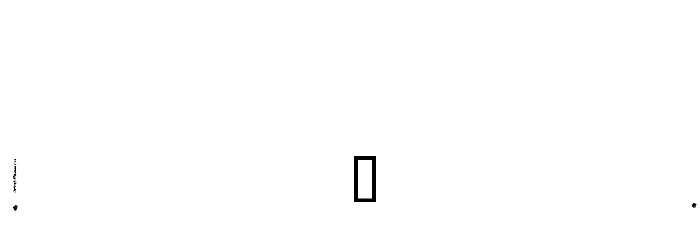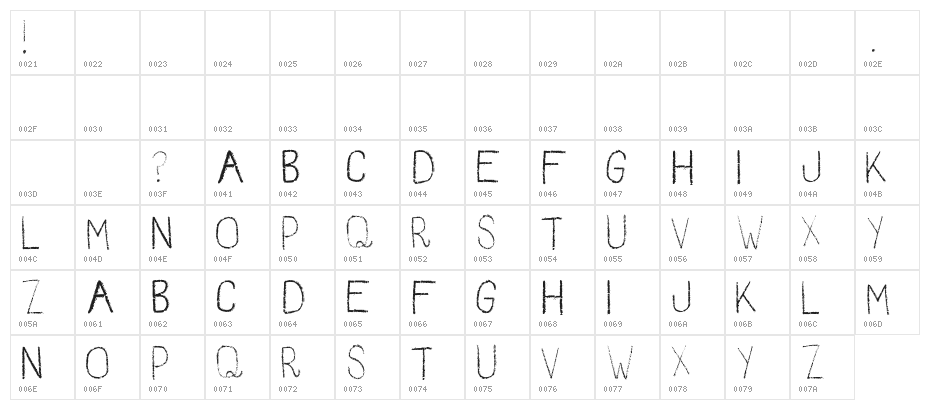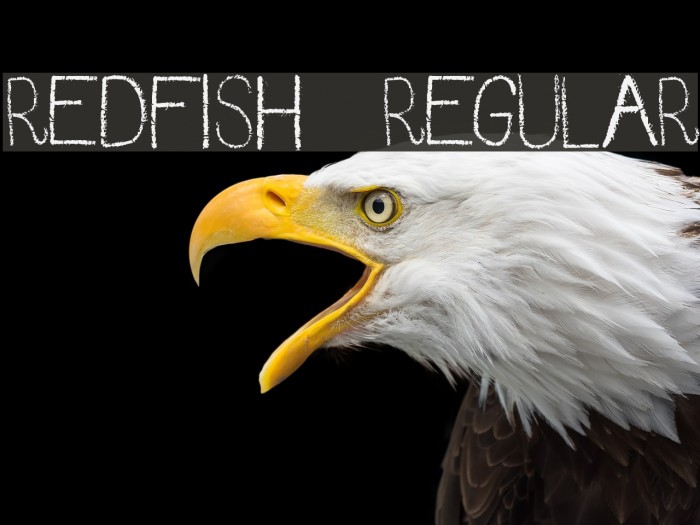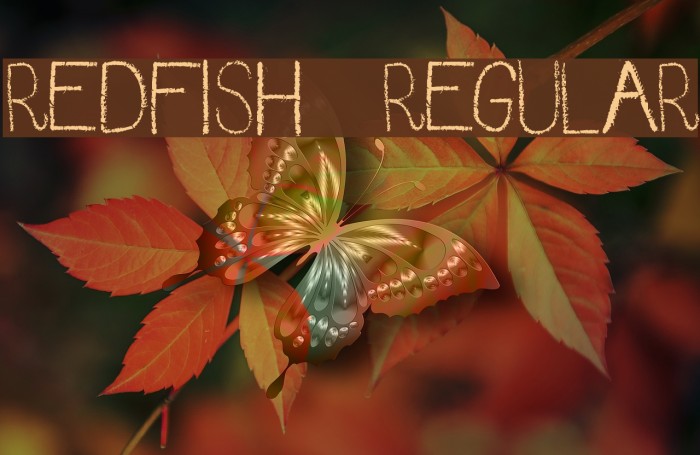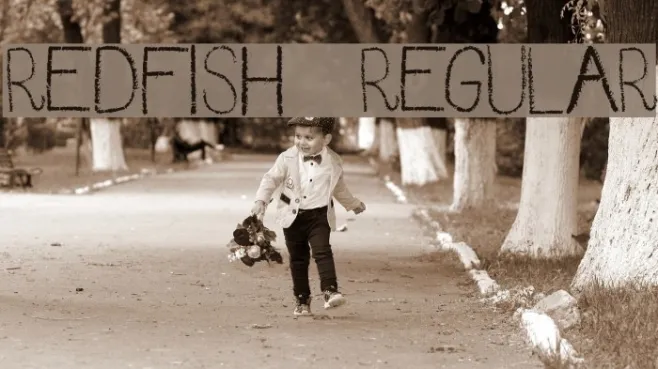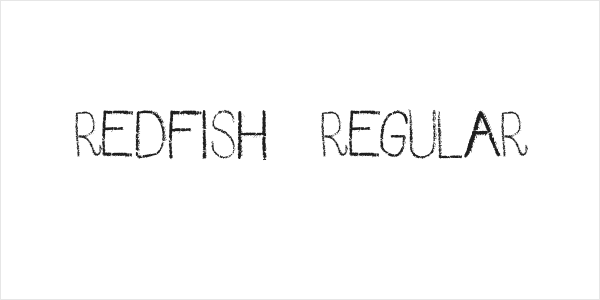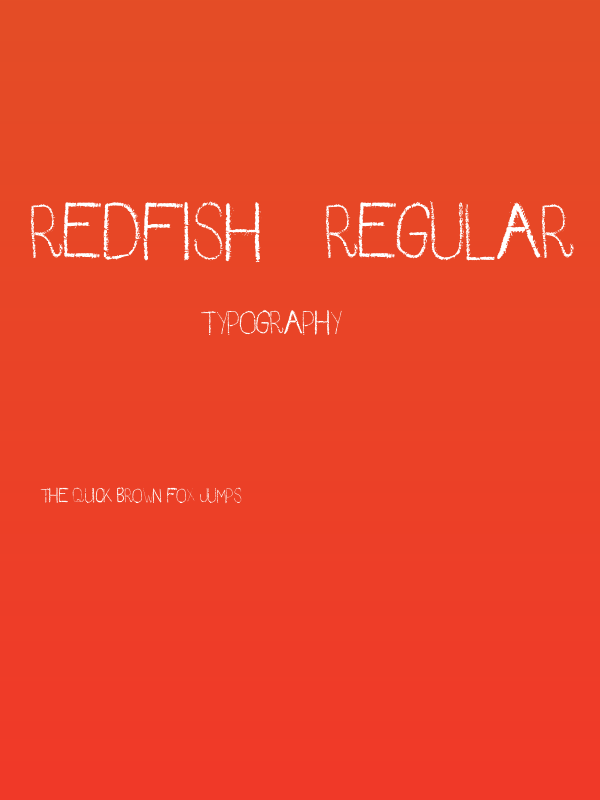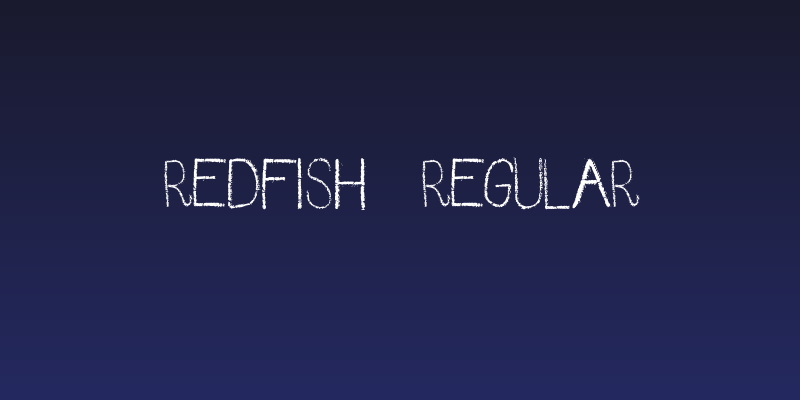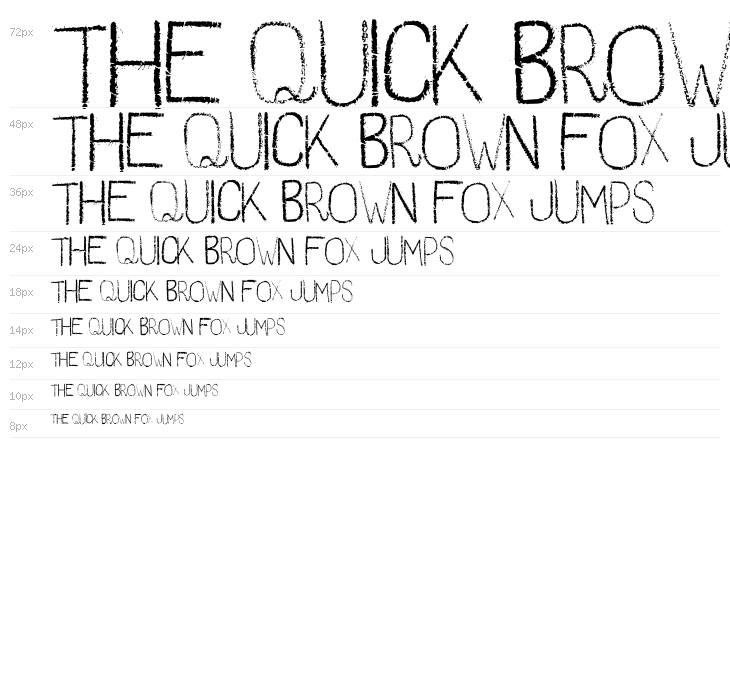
RedFish-Regular Font
RedFish-Regular Description
This font features a hand-drawn, textured style that gives it a unique and artistic appearance. The characters are slightly irregular, adding a playful and informal touch. The uppercase and lowercase letters maintain a consistent height, while the numbers and special characters follow the same textured pattern. This font's rough edges and sketch-like quality make it stand out, offering a creative and dynamic look suitable for various design projects.
| Use Case | Headlines, Logos, Artistic designs |
| Proposed Projects | Ideal for creative projects such as posters, invitations, and artistic branding. It can also be used for children's books or any design requiring a whimsical touch. |